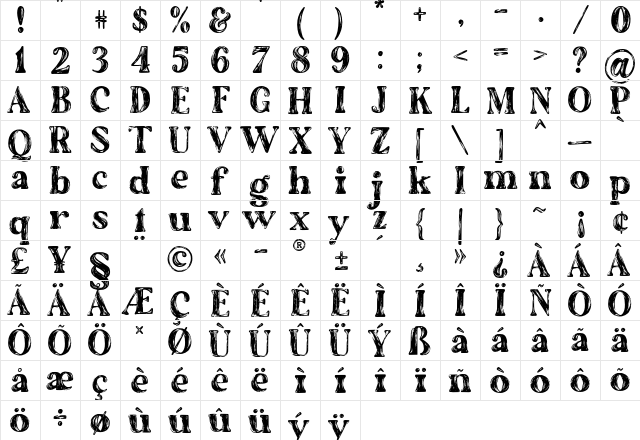
The Artisan Marker Serif Regular
| Foundry | Ef Studio - Luthfi Fauzi |
| Designer | Ef Studio - Luthfi Fauzi |
Design Context for The Artisan Marker Serif Typeface
The Artisan Marker Serif carries the refined structure of traditional serif typography, with bracketed terminals and considered proportions that communicate credibility and craft.